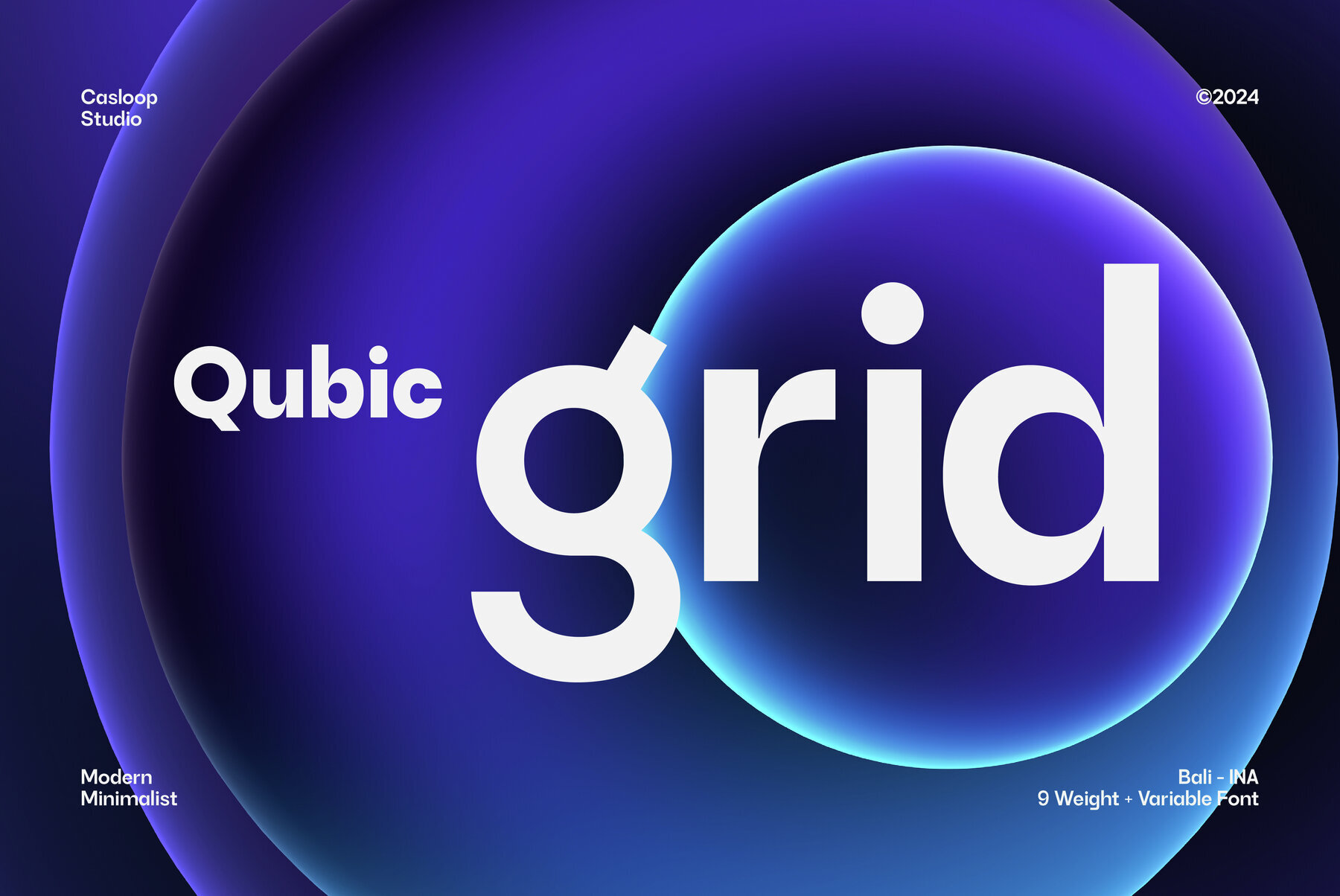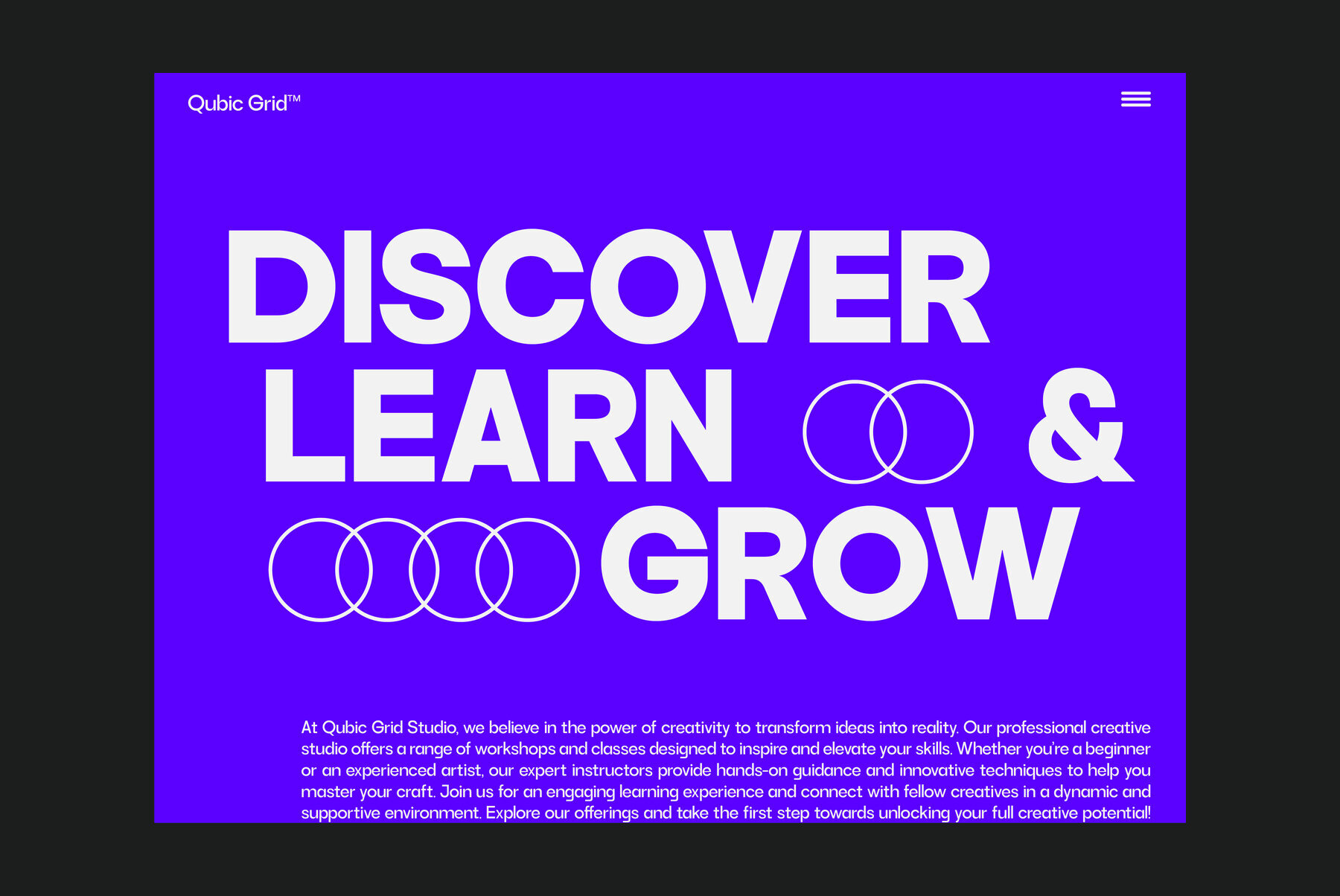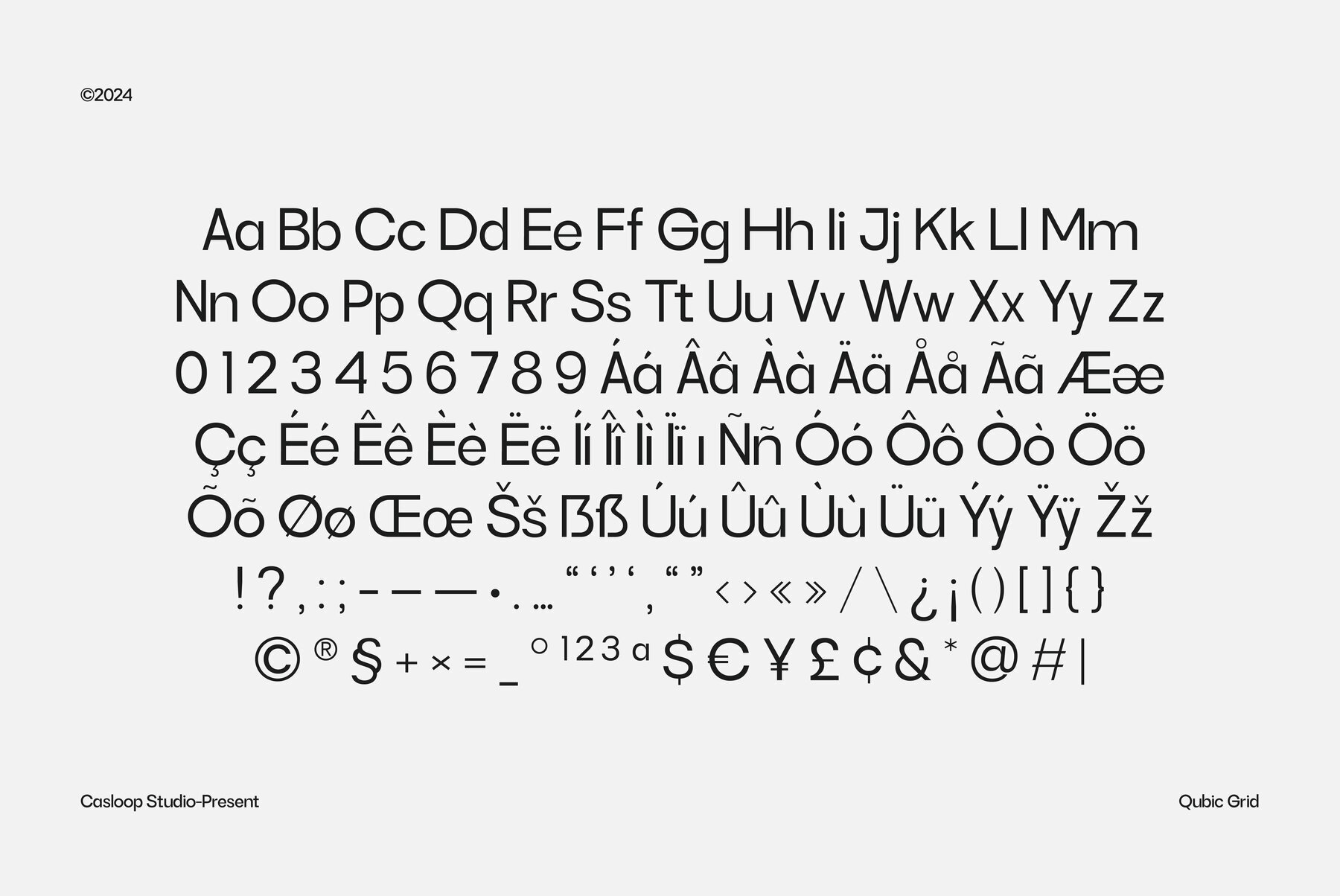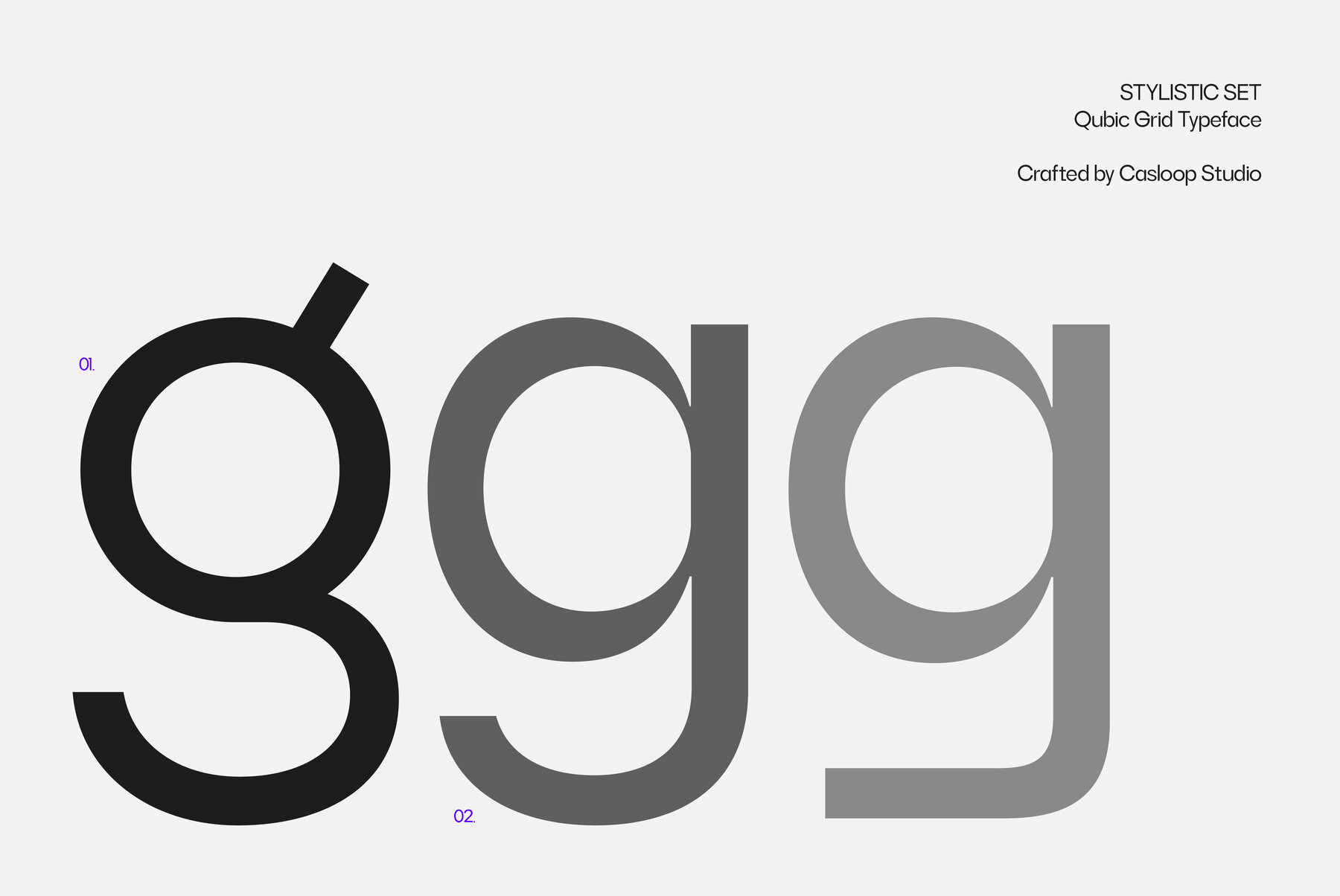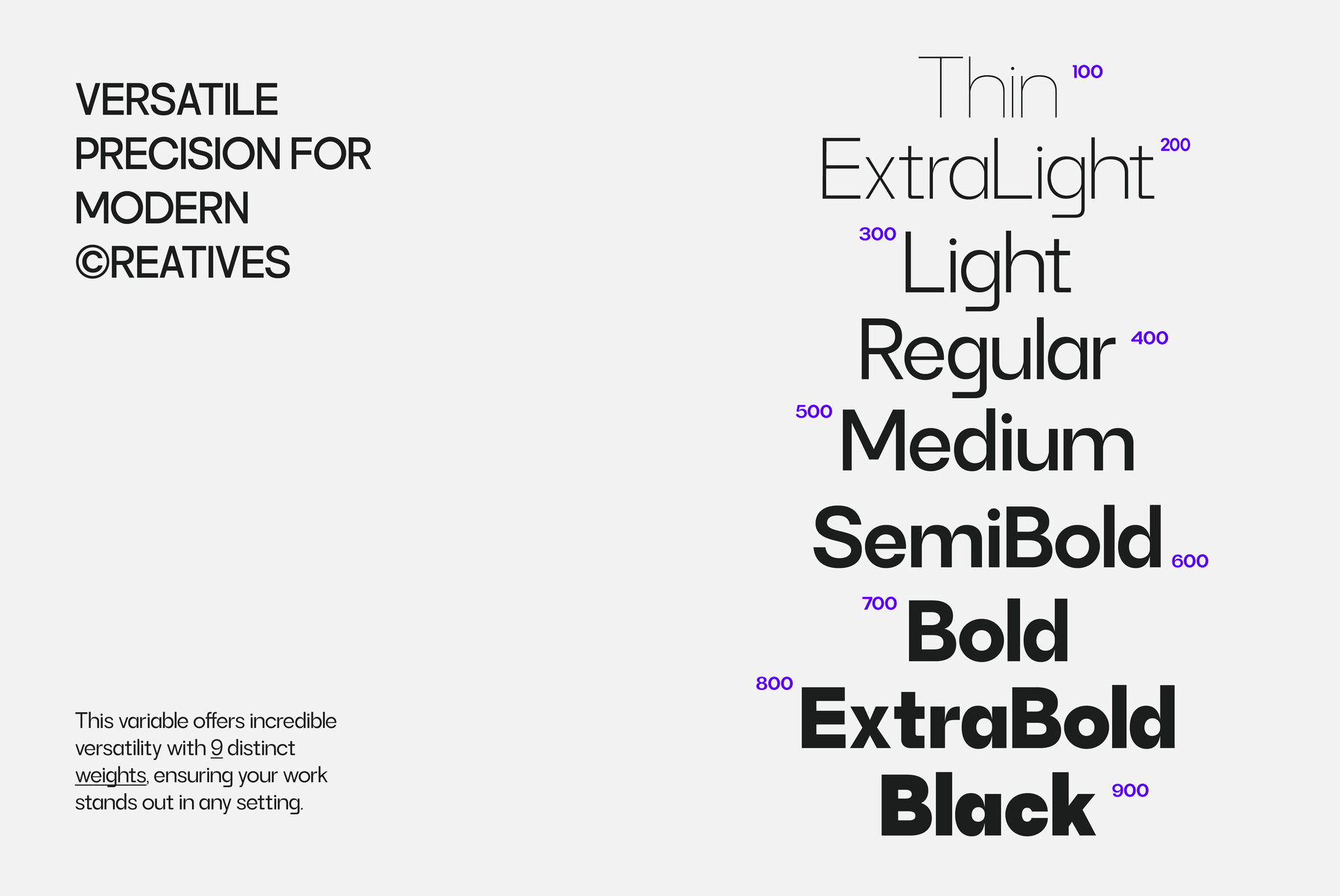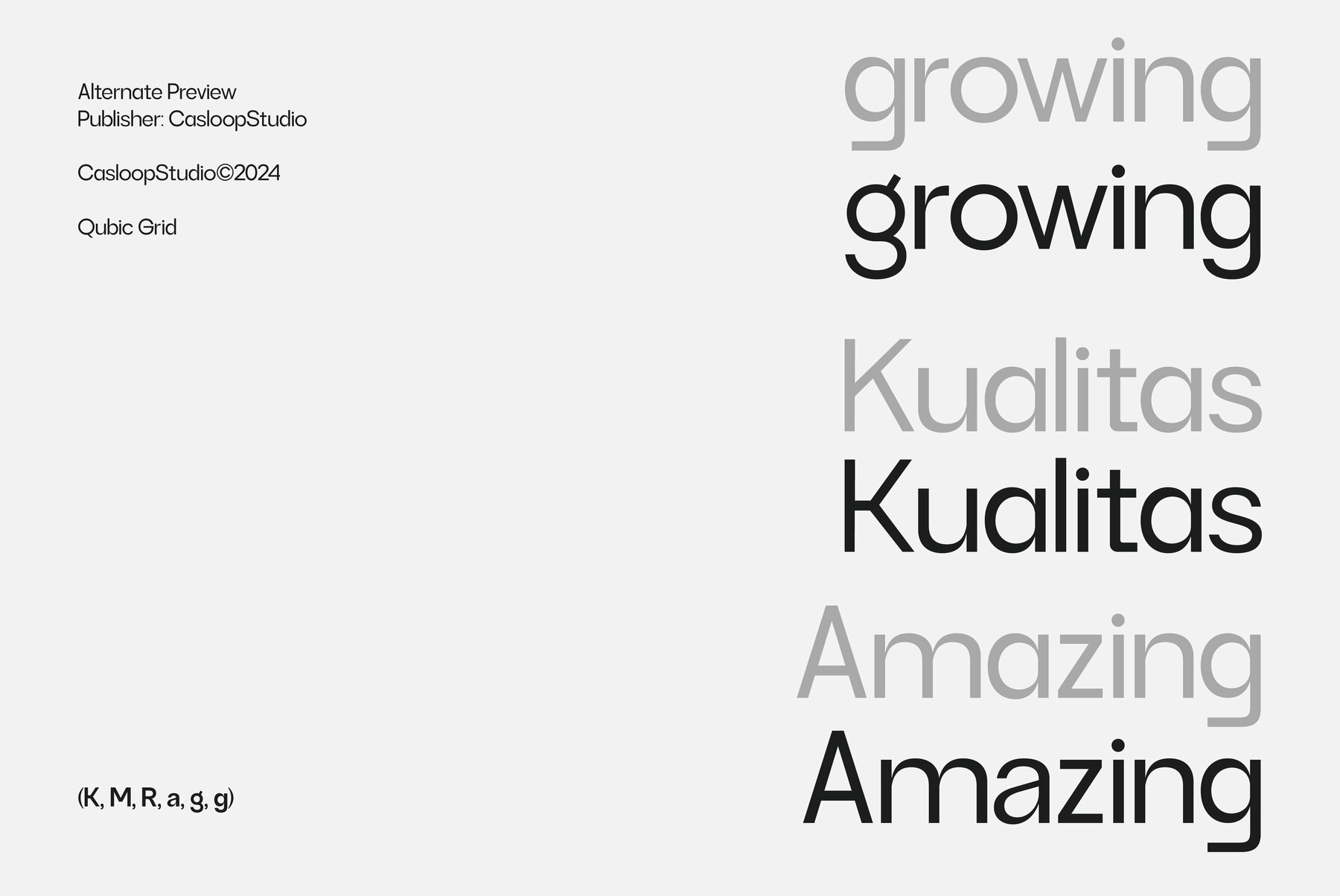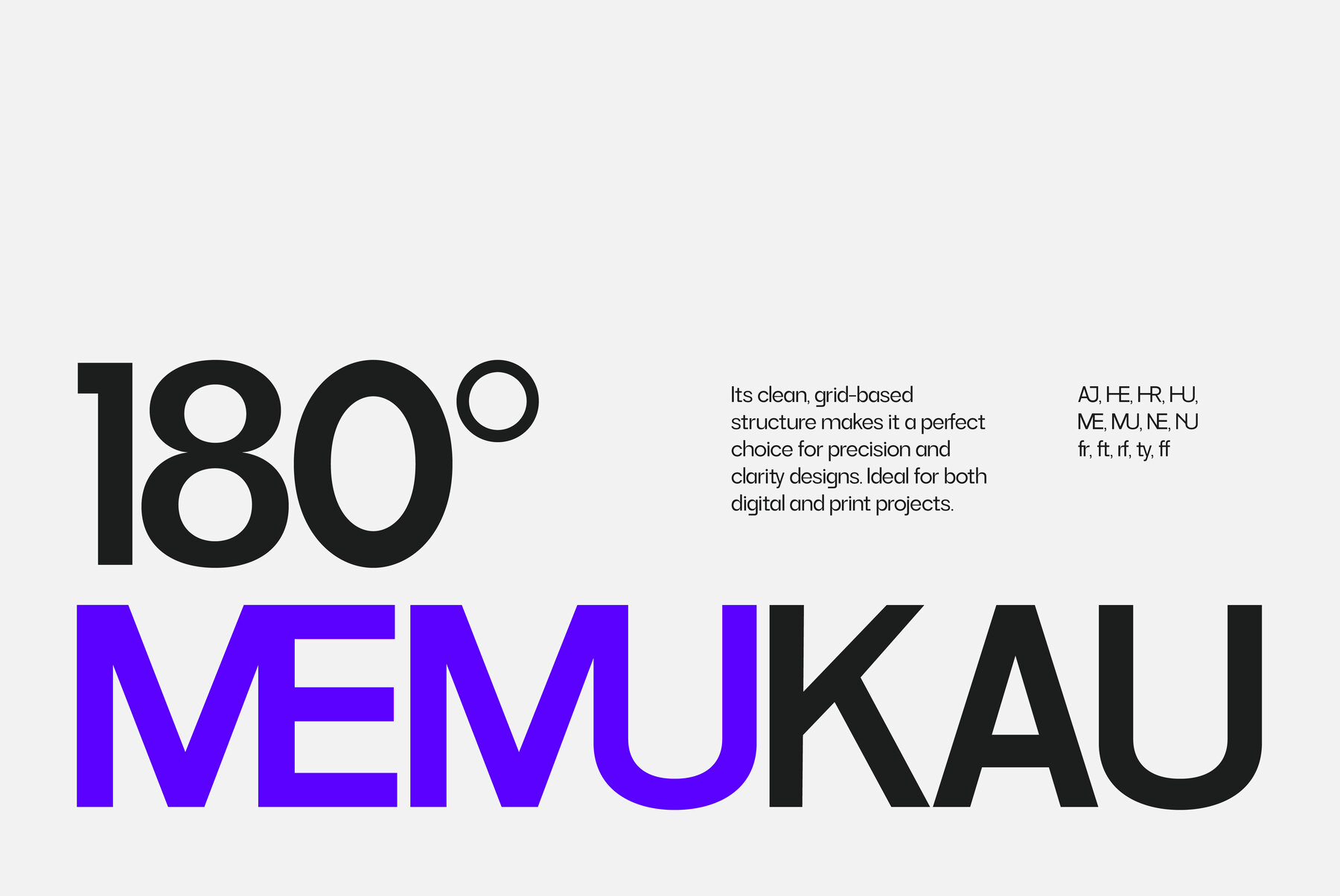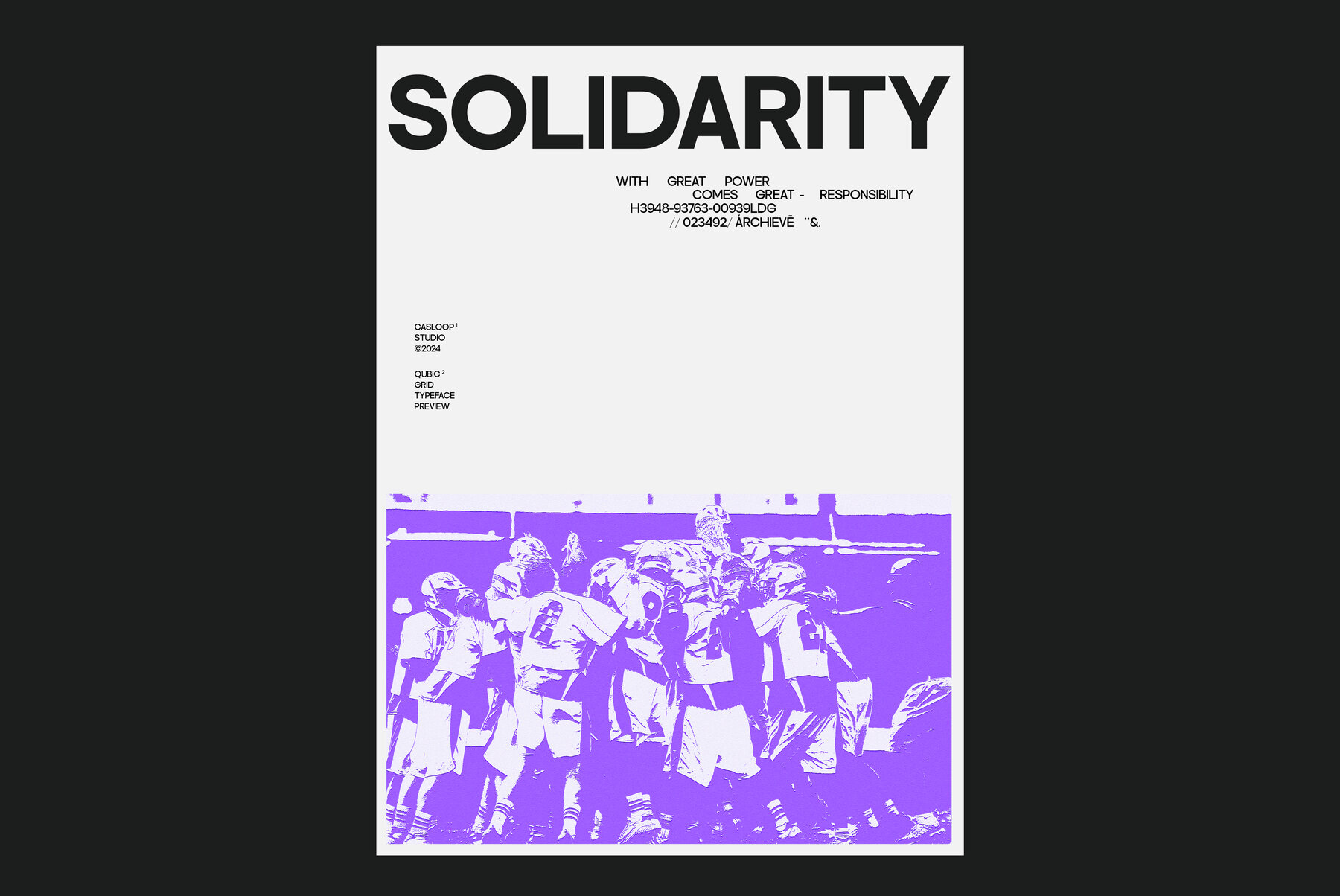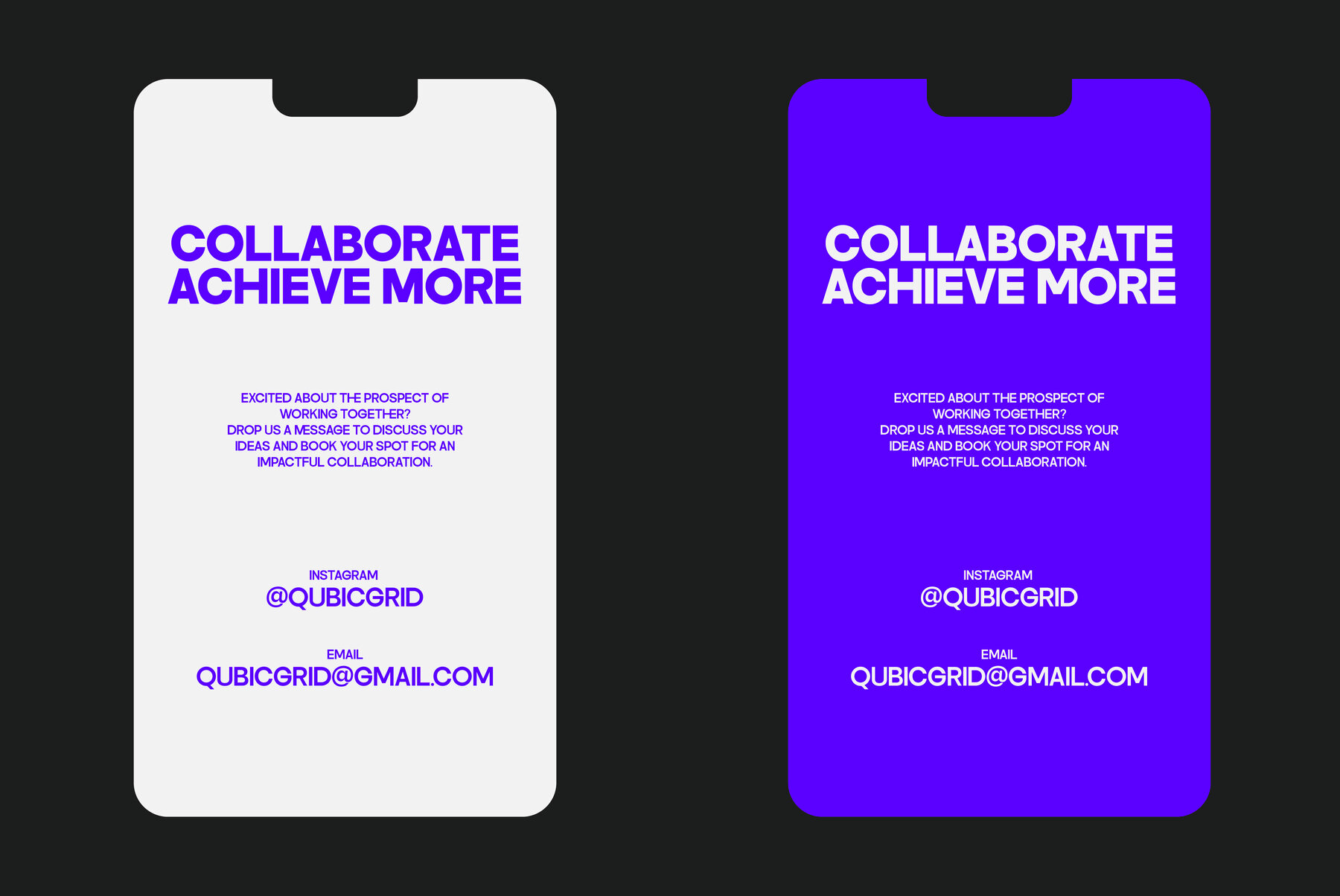
Qubic Grid Font
Qubic Grid is a geometric sans-serif typeface that effortlessly pairs modernity with timeless versatility. Perfectly suited for both digital and print mediums, it provides a clean aesthetic that complements UI/UX design, website interfaces, and dynamic digital media visuals. Distinctive uppercase characters and a Grotesque style define Qubic Grid. Its square, contemporary design is highly legible, and its quirky elements give it unique expressiveness. This typeface is ideal for business and corporate branding, projecting trustworthiness and sophistication. Features: This typeface supports a vast array of languages such as Bosnian, Catalan, Czech, Danish, German, English, Spanish, and many more, ensuring global applicability. With a blend of charm and modern appeal, Qubic Grid adds a touch of contemporary style to creative projects while maintaining classic elegance.Qubic Grid: Modern Grotesque Meets Timeless Versatility